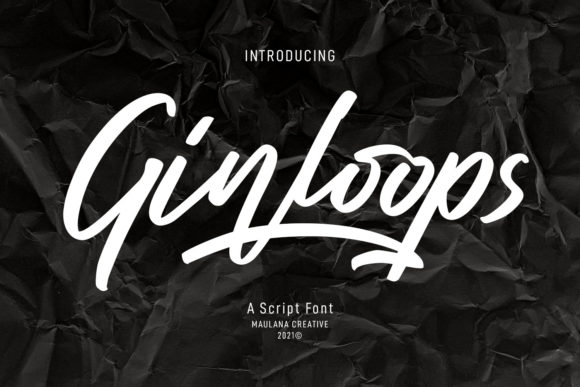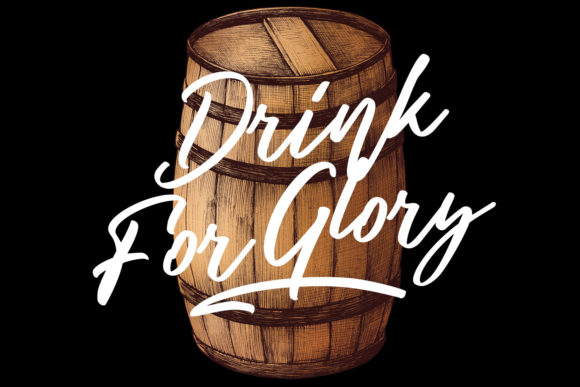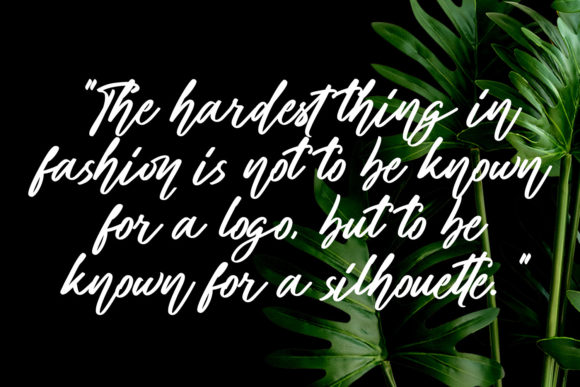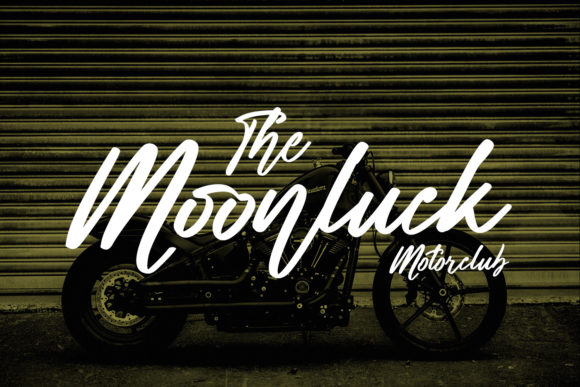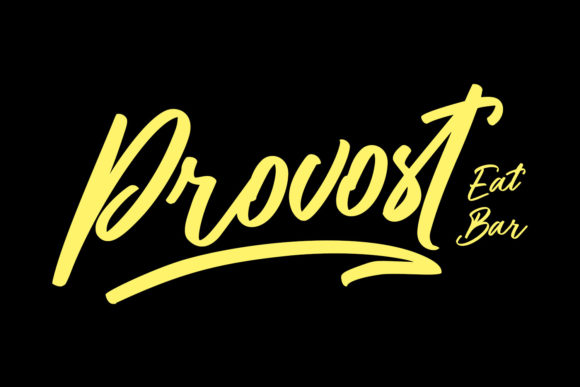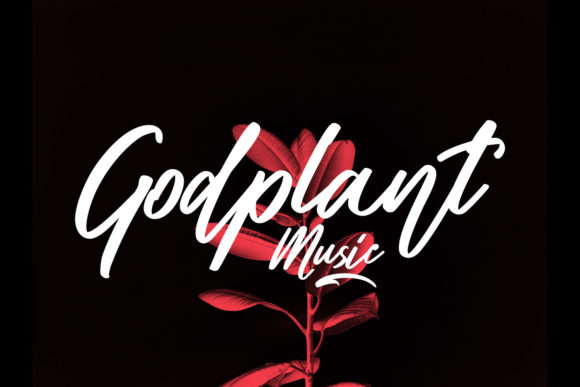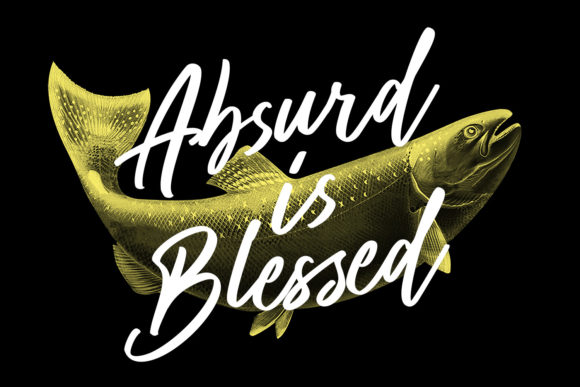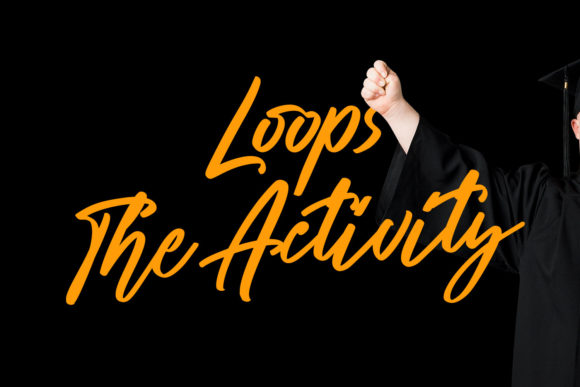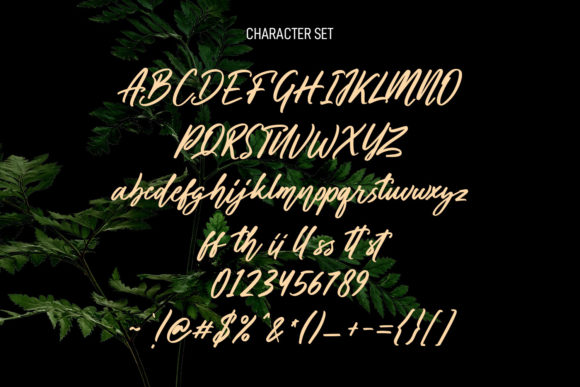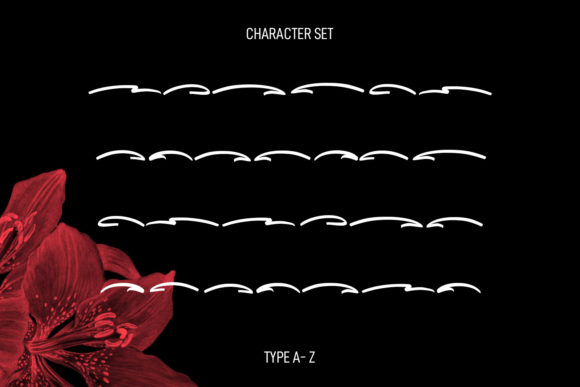
Ginloops Font
About Ginloops Font
Ginloops is a lovely and casual script font that exudes elegance and class. This font was particularly crafted for those who need a beautiful and refreshing look to their designs.